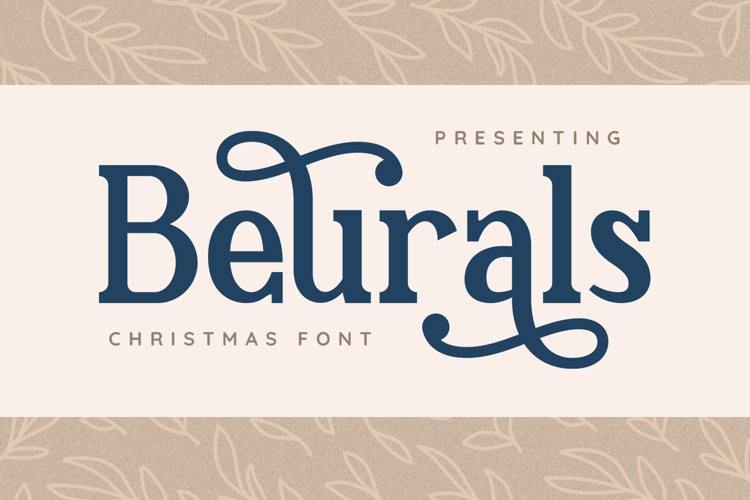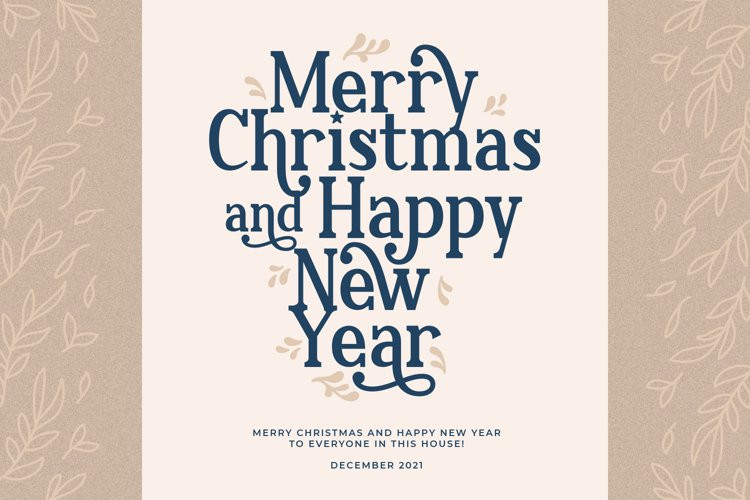
Beurals Font
Beurals FontBeurals is a vintage styled and unique display font. No matter the topic, this font will be an incredible asset to your fonts’ library, as it has the potential to elevate any creation.